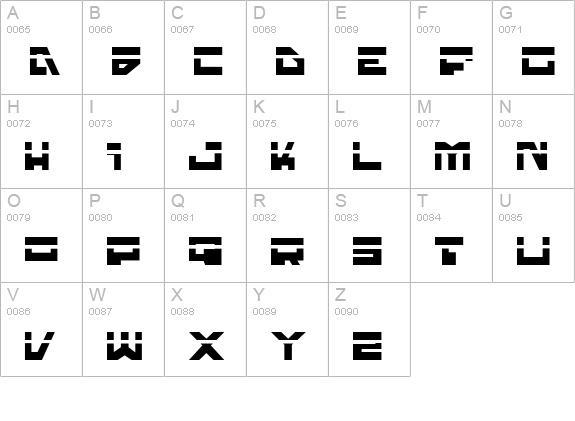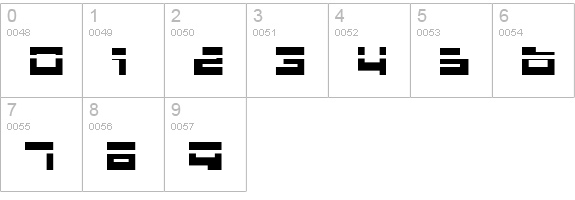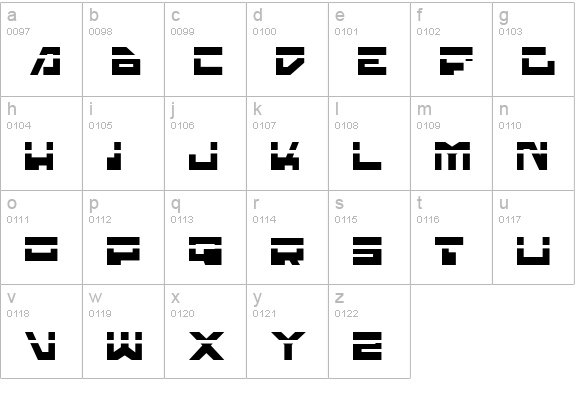
Trajia Laser font is a sleek and modern typeface that exudes elegance and sophistication. With its clean lines and sharp angles, this font is perfect for adding a touch of sophistication to any design project. The unique laser-cut inspired design gives it a futuristic feel that is sure to make your text stand out. What's even better is that Trajia Laser font is available for free! You can easily download this font at FontsMarket.com and start using it in your projects right away. Whether you're working on a website, a flyer, a logo, or any other design, Trajia Laser font will help you achieve a professional and eye-catching look. Don't miss out on this fantastic font that combines style and functionality in one package!